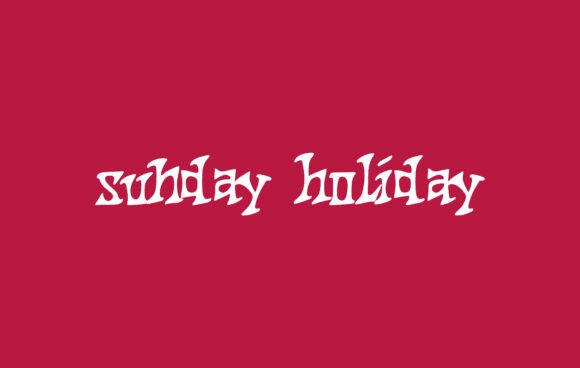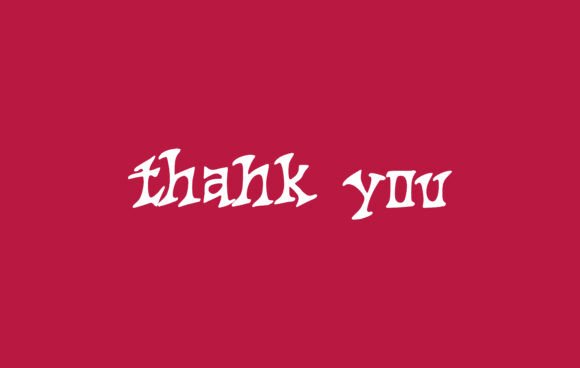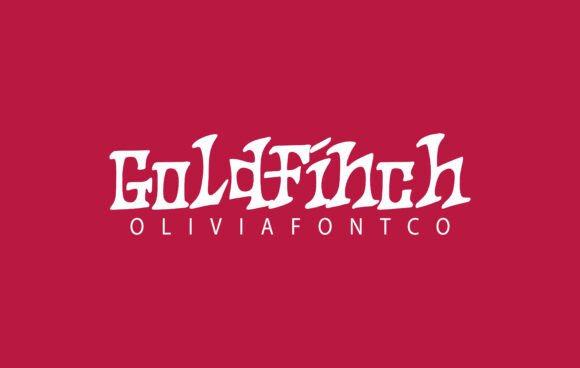
Introducing the Goldfinch Font: Elevate Your Designs with a Romantic Touch
In the world of typography, a font can make all the difference in bringing your creative vision to life. For designers and crafters looking for that special something to add a touch of elegance and romance to their projects, the Goldfinch Font is an exceptional choice. This authentic handwritten font is not just a typeface; it’s an experience that can transform your designs, making them more captivating and memorable.
The Essence of Goldfinch Font
Goldfinch font is an authentic handwritten font with a romantic touch, expertly designed to capture the hearts of designers and audiences alike. Its unique charm lies in its ability to blend elegance with readability, making it a versatile tool for a wide range of design projects. Whether you’re working on magazine headlines, social media content, branding materials, wedding invitations, or greeting cards, Goldfinch font has the potential to elevate your creative ideas to the highest level.
Why Choose Goldfinch Font?
So, what sets Goldfinch font apart from other typefaces? Here are a few reasons why it’s becoming a favorite among designers:
- Legibility and Versatility: Despite its elegant and artistic nature, Goldfinch font remains highly legible, making it suitable for both title and body text. This versatility is rare in handwritten fonts, which often sacrifice readability for aesthetic appeal.
- Romantic and Elegant: The font’s romantic touch adds a layer of sophistication to any design. Its elegant strokes and beautiful letterforms make it perfect for projects that require a touch of class and refinement.
- Wide Range of Applications: From digital platforms like social media and blogs to print materials such as magazines, wedding invitations, and cards, Goldfinch font adapts seamlessly to various mediums and design needs.
Applications of Goldfinch Font
The possibilities are endless with Goldfinch font. Here are some popular applications where this font truly shines:
- Magazine Headlines: Add a touch of elegance to your magazine’s headlines, making each issue a collector’s item.
- Social Media: Stand out on social media platforms with eye-catching posts and stories that reflect your brand’s personality.
- Branding: Enhance your brand’s visual identity with a font that communicates sophistication and warmth.
- Wedding Invitations: Make your wedding invitations or any event announcements unforgettable with a romantic and elegant typeface.
- Cards: Whether it’s a greeting card, a thank you note, or a birthday wish, Goldfinch font adds a personal touch that makes the recipient feel special.
Tips for Using Goldfinch Font Effectively
To maximize the impact of Goldfinch font in your designs, consider the following tips:
- Mix and Match: Don’t be afraid to experiment by pairing Goldfinch font with other typefaces. A contrasting font for headings and Goldfinch for body text can create a stunning visual hierarchy.
- Play with Colors: While the font itself is beautiful, experimenting with different colors can enhance its appearance. Soft pastels, rich tones, or classic black and white can all bring out the font’s unique qualities.
- Adjust Letter Spacing: For a more customized look, adjust the letter spacing. This can add a more organic or luxurious feel to your text, depending on your design goals.
Goldfinch font is more than just a typeface; it’s a design element that can transform your creative projects with its romantic touch and elegant appearance. Its legibility, versatility, and wide range of applications make it an invaluable tool for designers and crafters looking to add a touch of sophistication and charm to their work. Whether you’re designing for digital platforms or print materials, Goldfinch font is sure to elevate your designs and leave a lasting impression on your audience.
So, why settle for ordinary when you can make your designs extraordinary with Goldfinch font? Explore its potential, experiment with its various applications, and discover how this beautiful handwritten font can bring your creative visions to life.